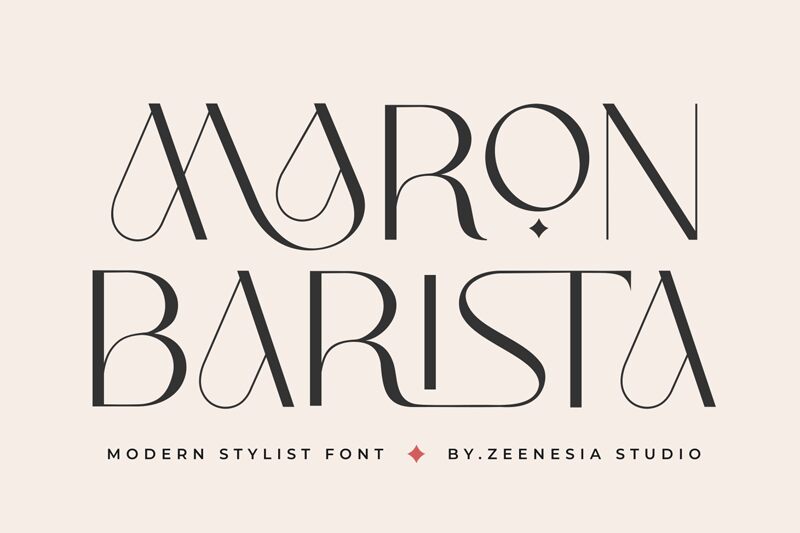
Maron Barista font by Zeenesia Studio is a free font that combines elegant and modern design elements. Inspired by geometric influences, it presents a sophisticated aesthetic with clean lines and contemporary appeal, making it effortlessly versatile for any creative project.
Use Maron Barista in high-end branding, cosmetics labels, product packaging, magazine covers, book covers, fashion advertisements, posters, logos design projects stadiums environmental graphics digital interfaces branding venues.